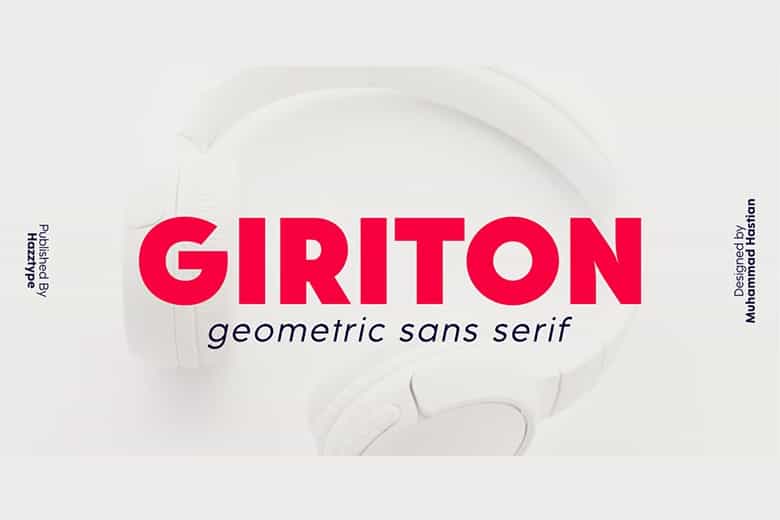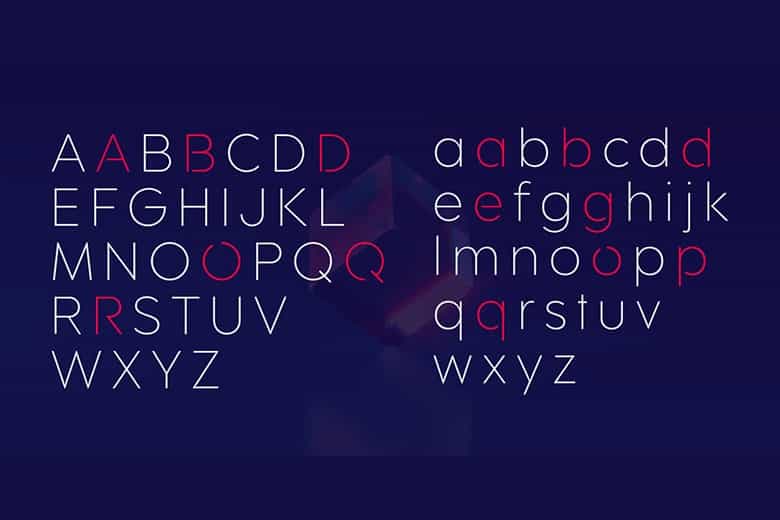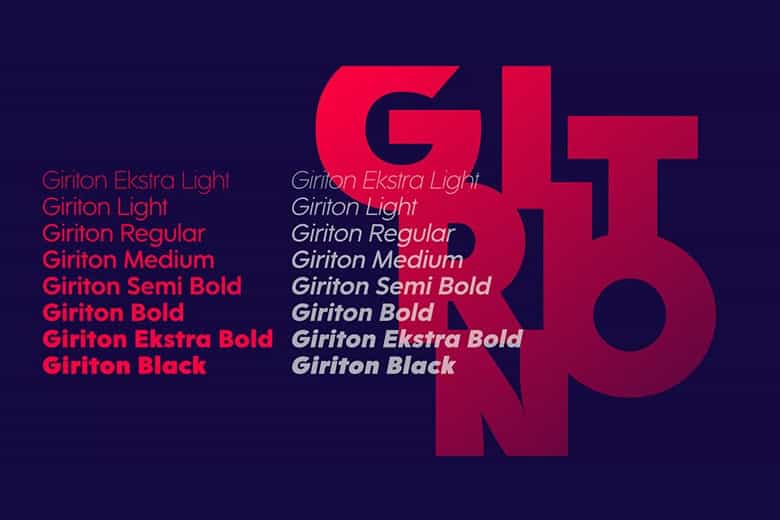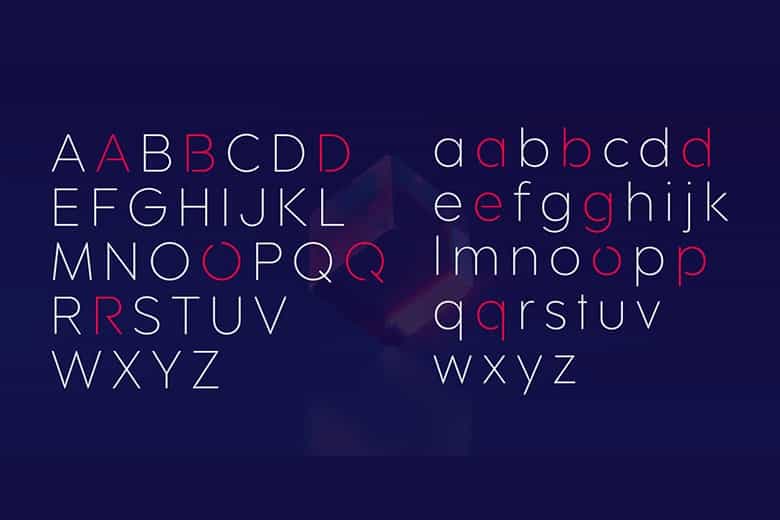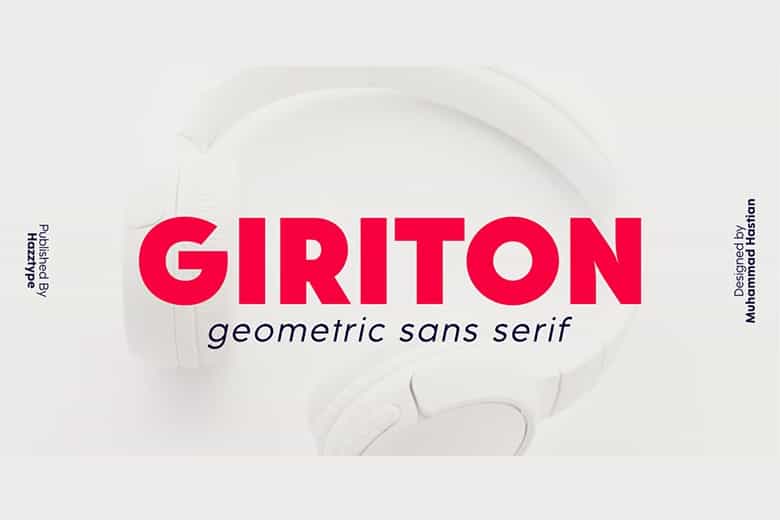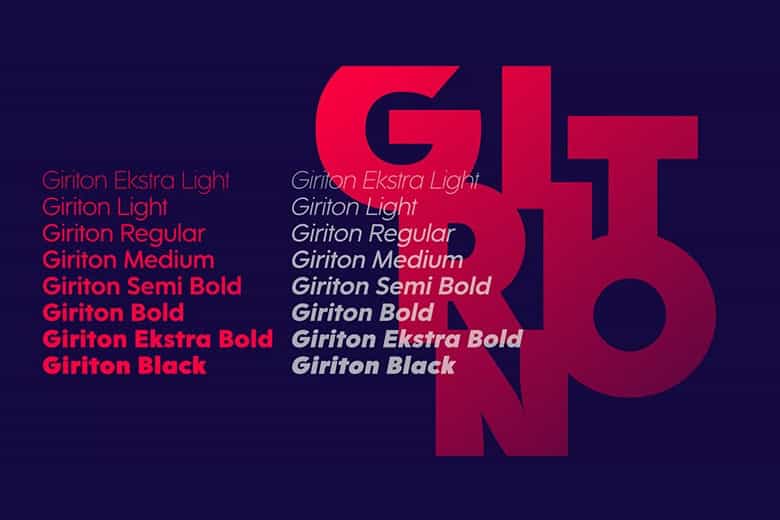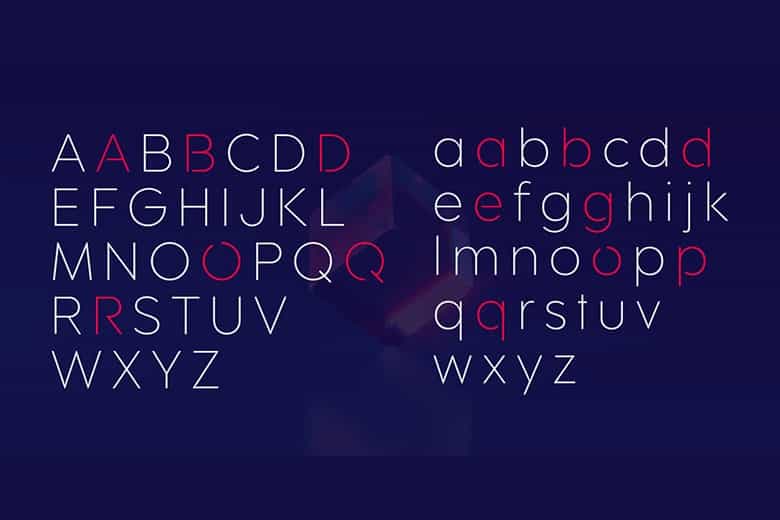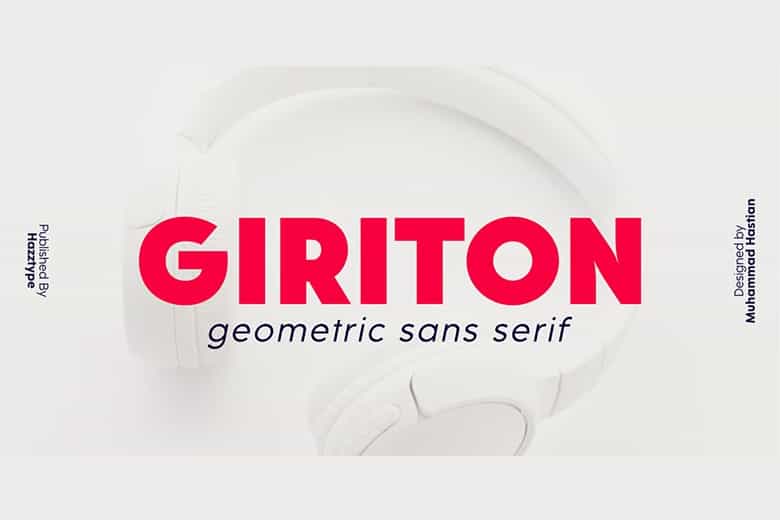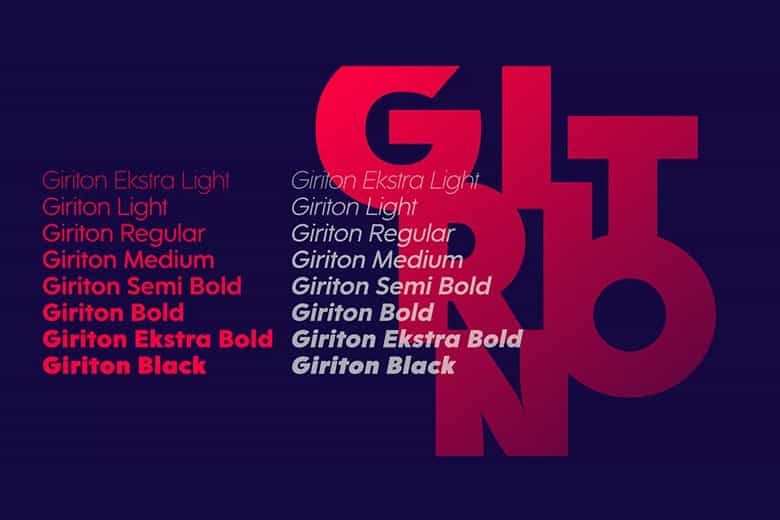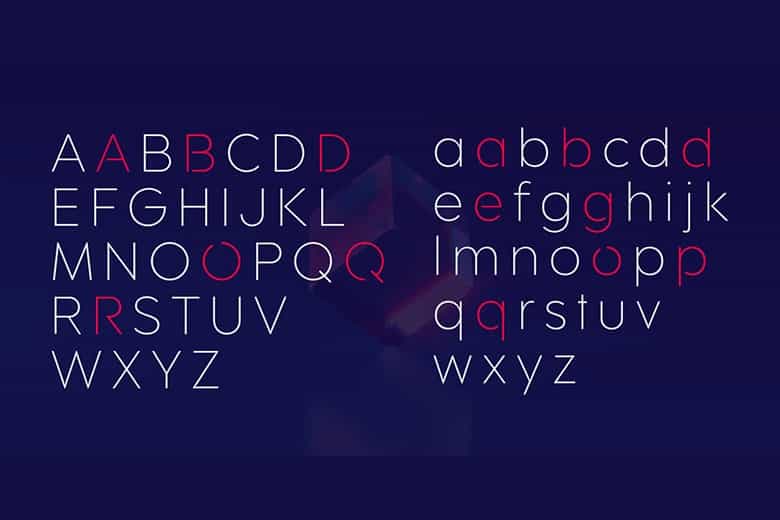
Giriton Font
Giritron is a geometric, sans serif font that is both elegant and contemporary at the same time. Giritron does not disappoint when it comes to gauging the balance between the readability and aesthetic effect due to its angular, highlighted distinctness, and minimalist style.